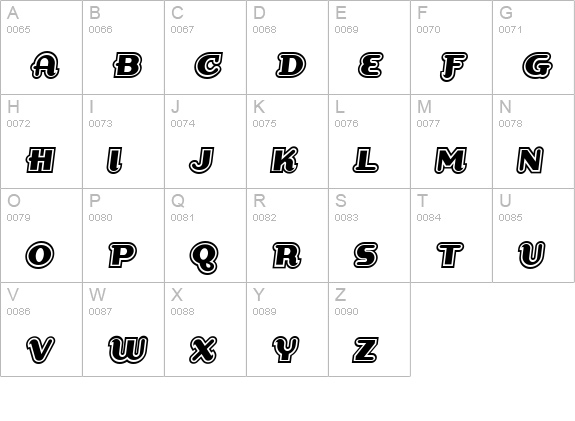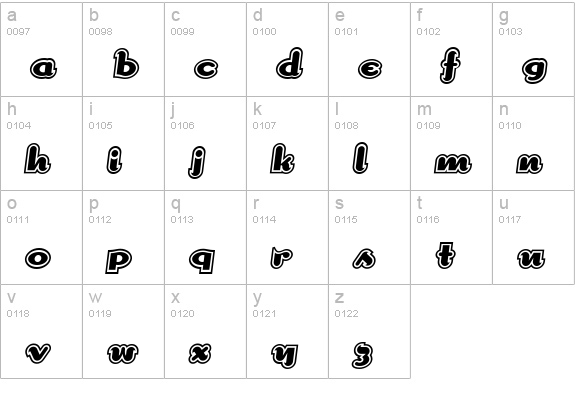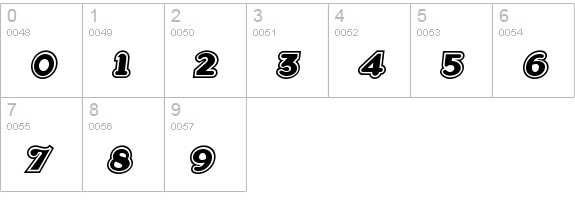
DogmaOutline Font Details
DogmaOutline font is a modern and stylish typeface that adds a touch of sophistication to any design project. Its sleek outlines and clean lines make it perfect for a variety of uses, from branding to editorial design. The font exudes a sense of elegance and professionalism while maintaining a contemporary edge. What makes DogmaOutline font even more appealing is that it is completely free to download. You can easily access this versatile font at FontsMarket.com, where you can find a wide range of high-quality fonts for all your creative needs. With DogmaOutline font, you can bring your designs to the next level with its unique and eye-catching style.